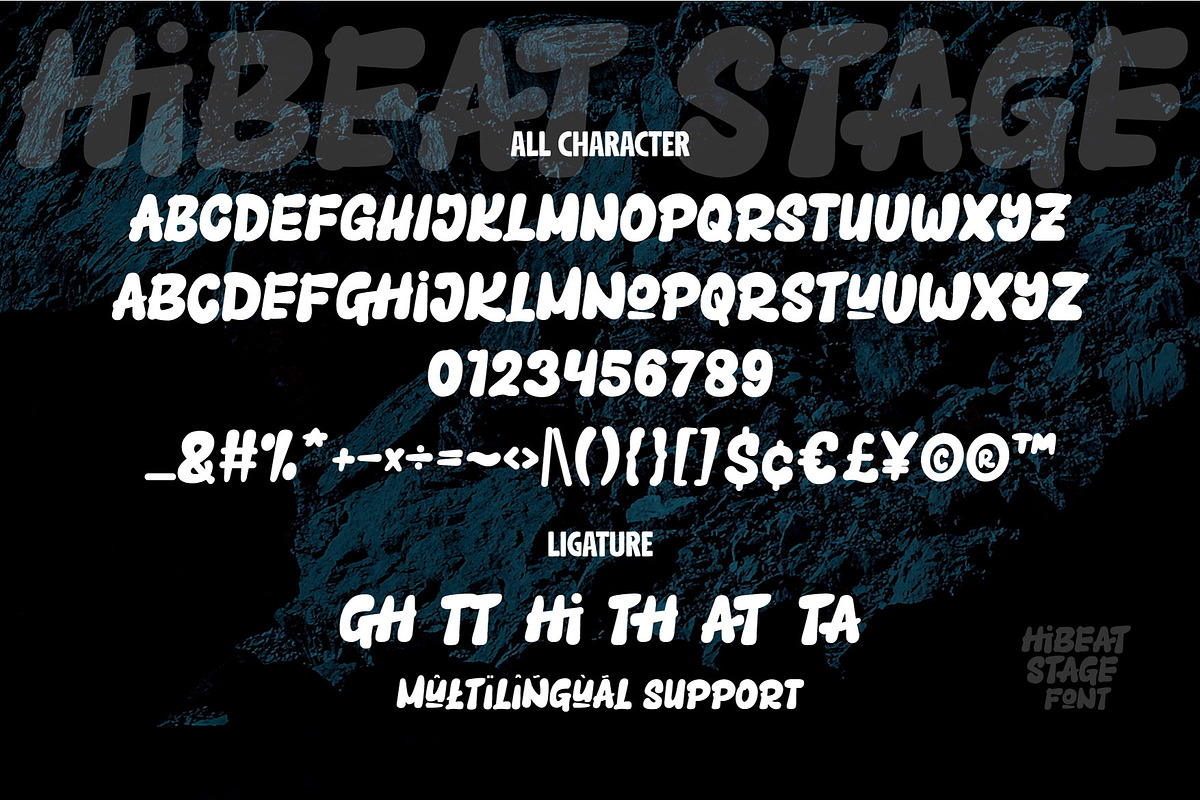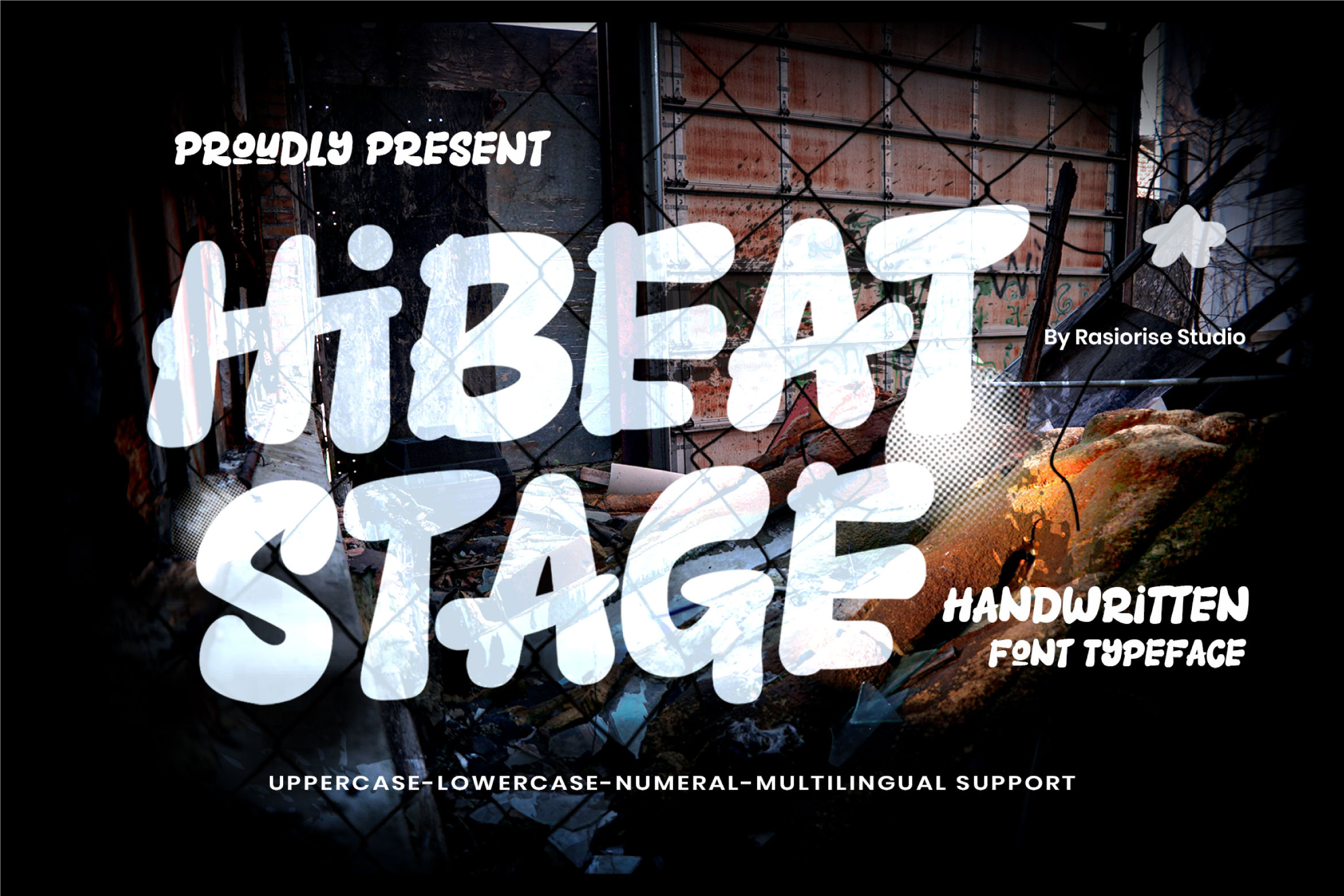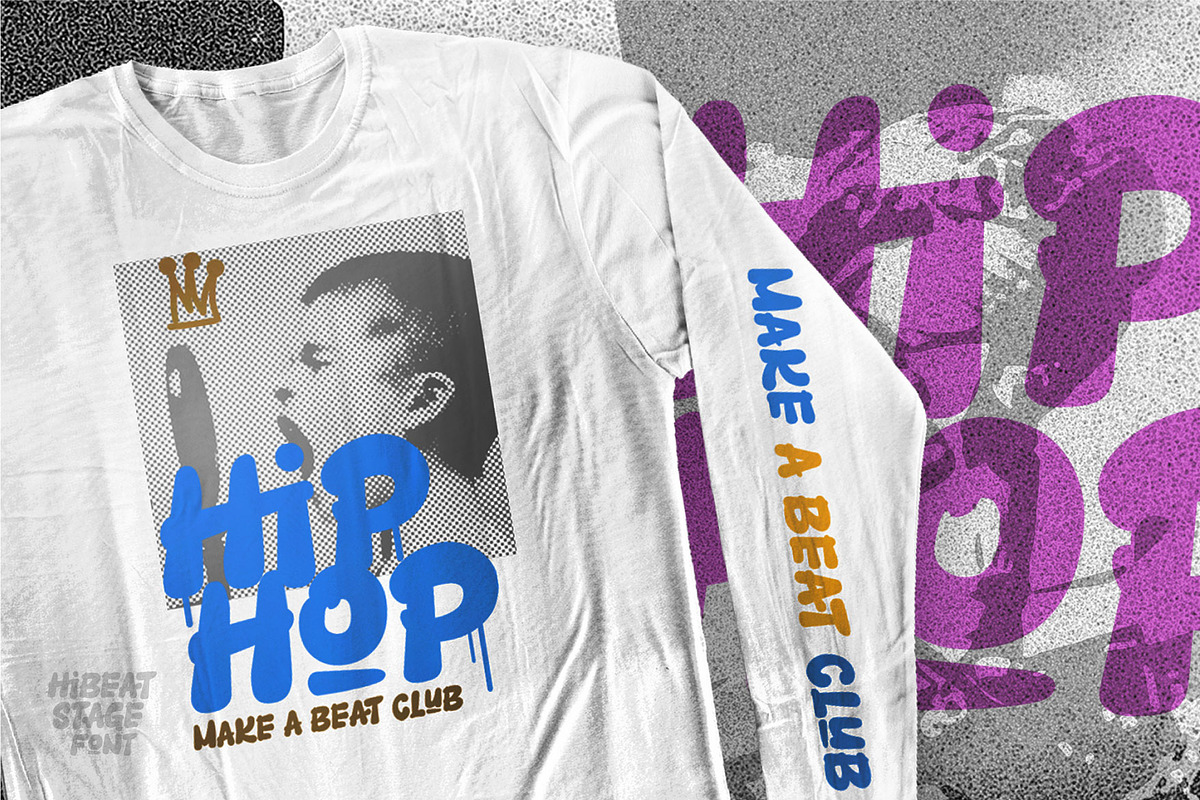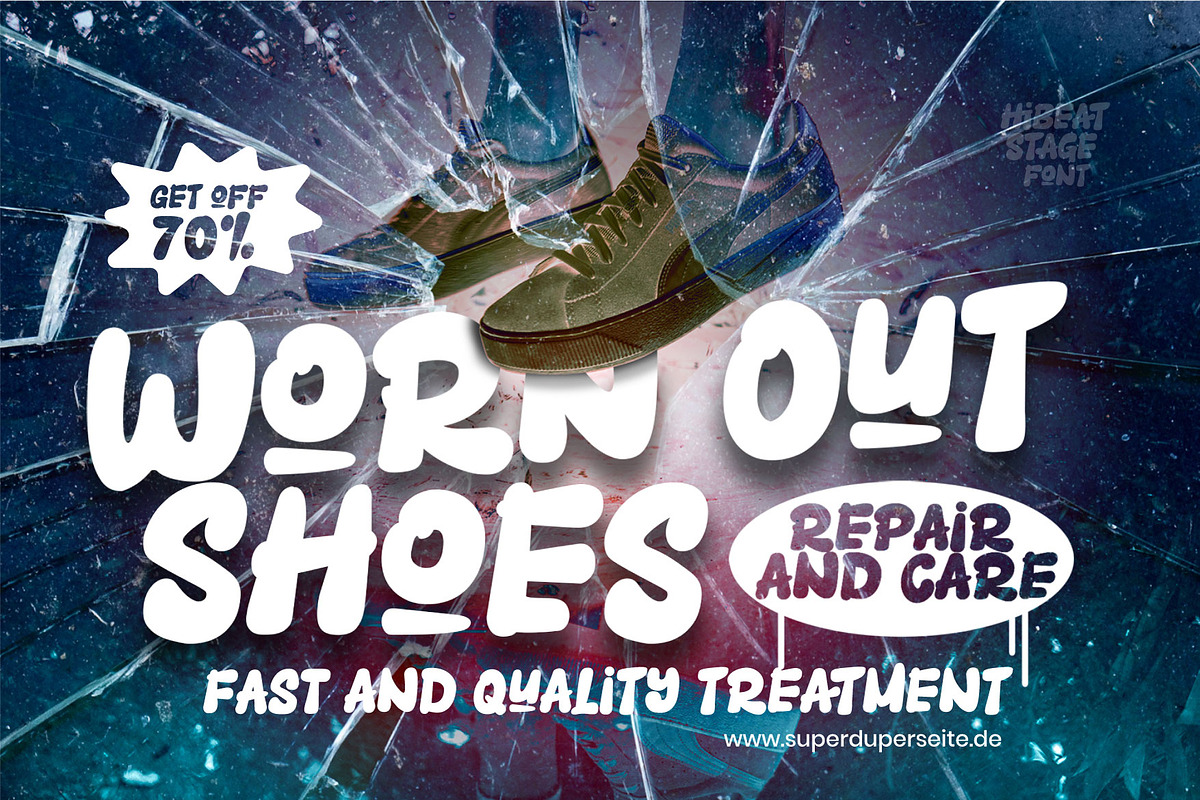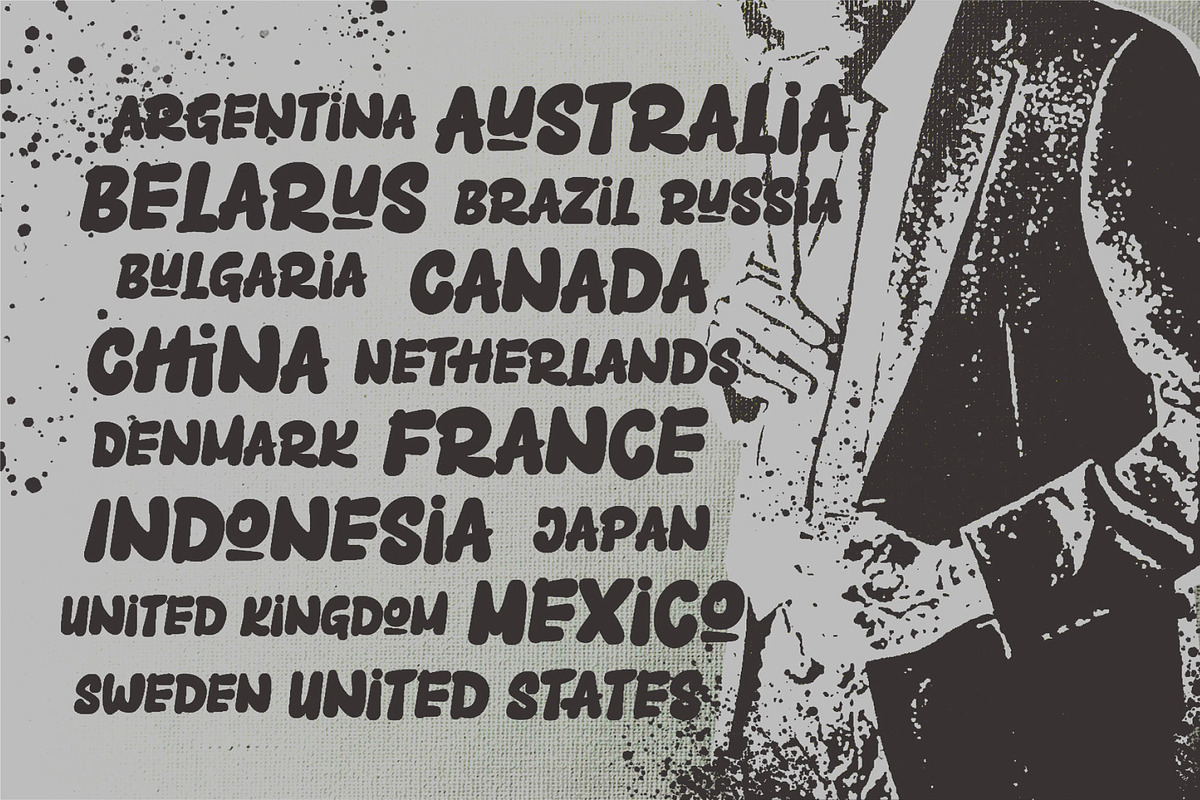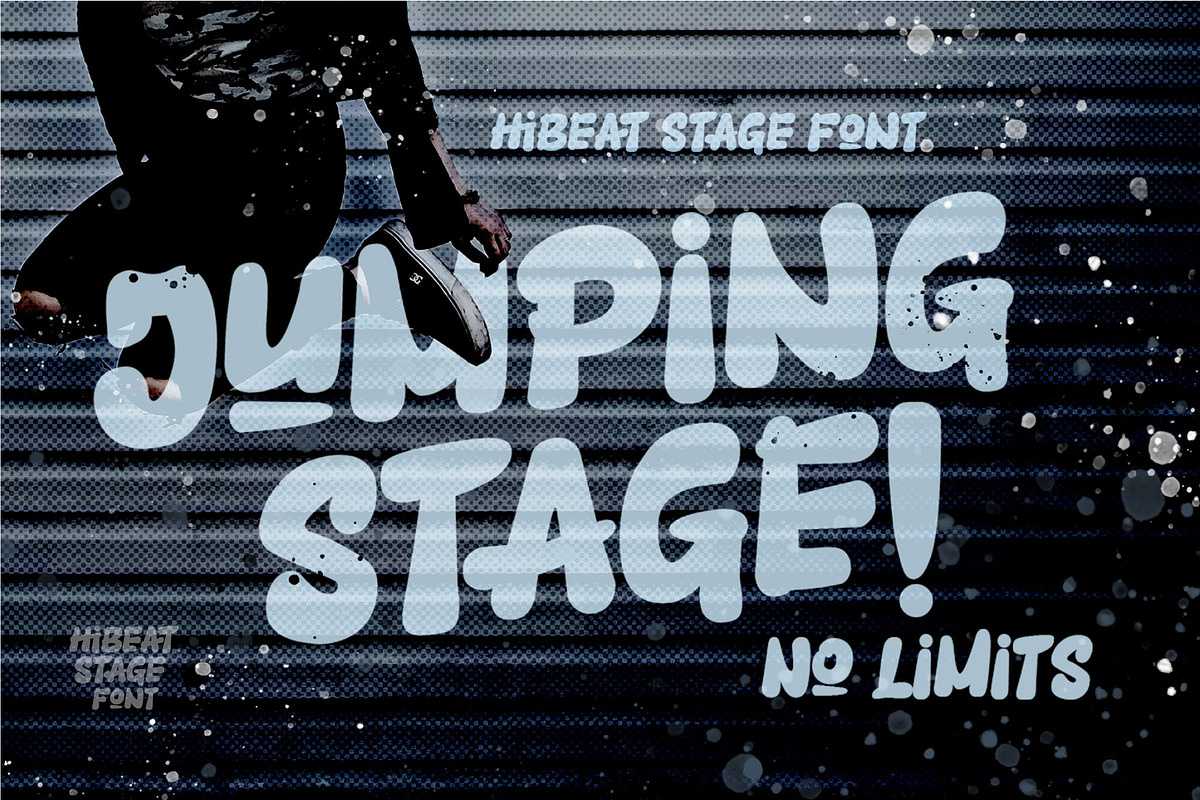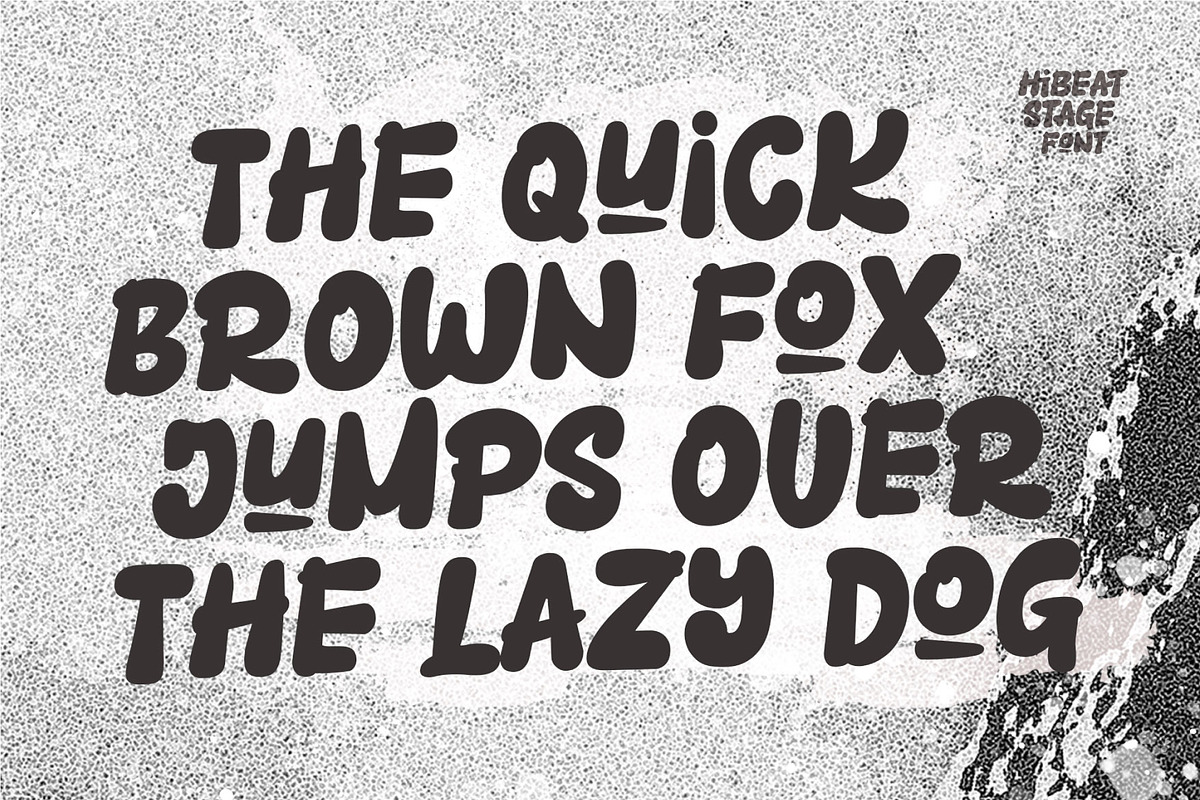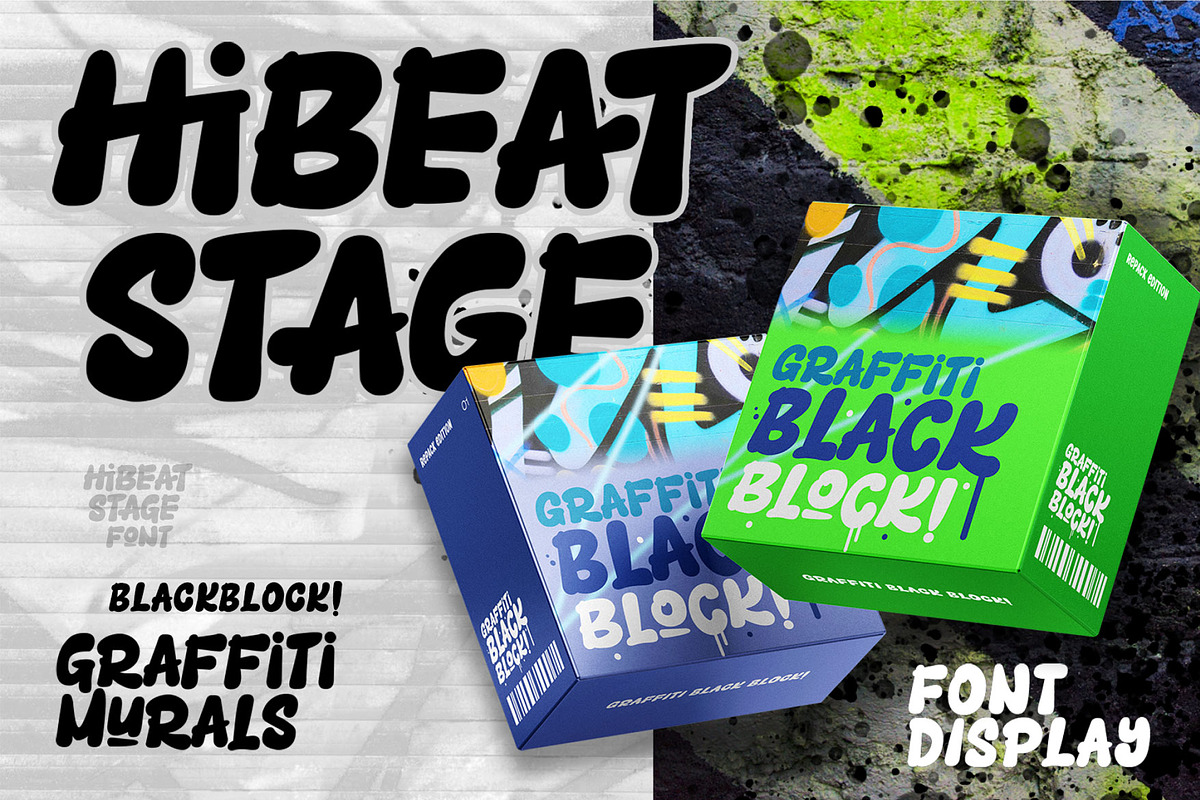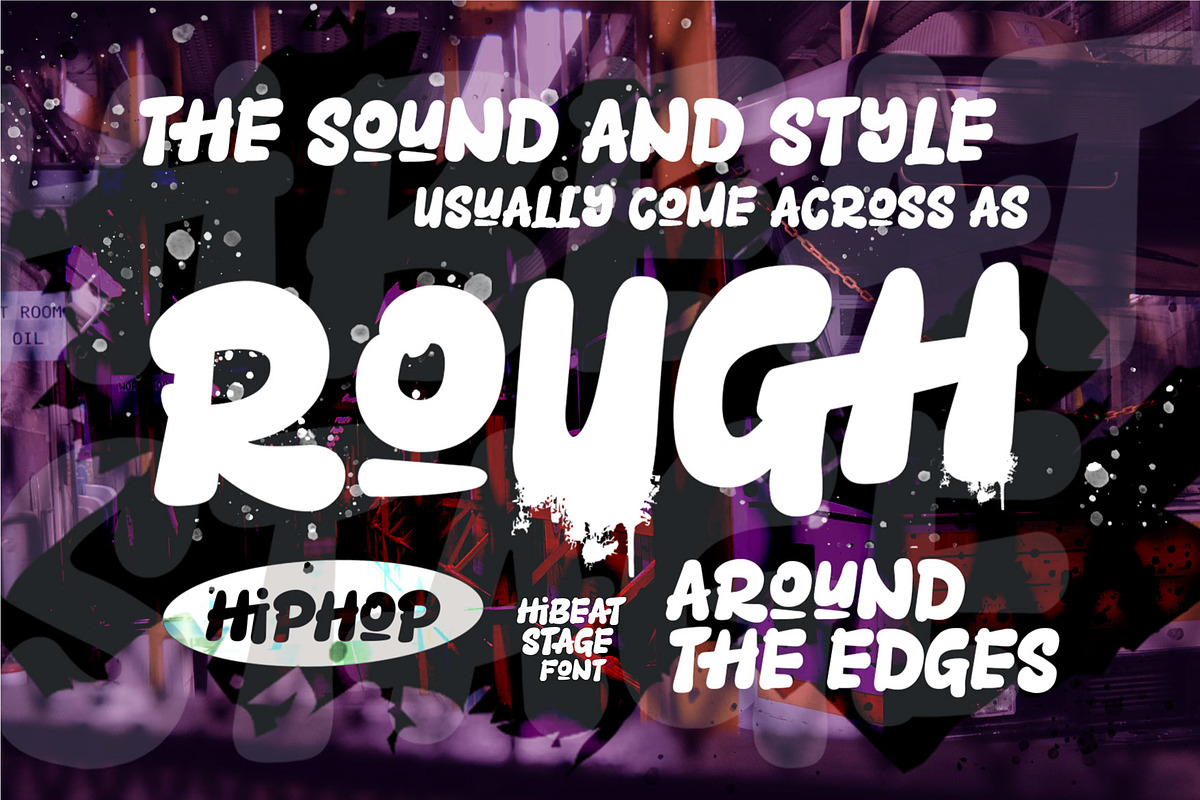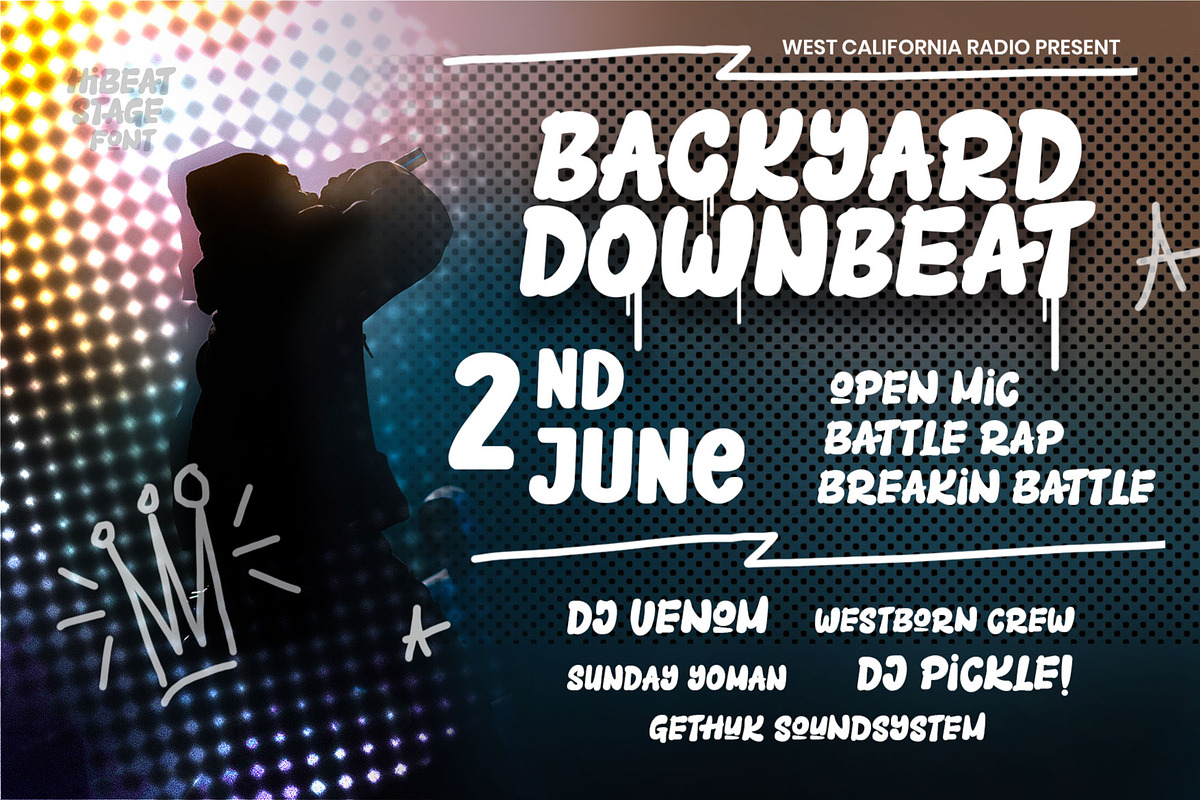
Hibeat Stage a Handwritten Font
Hello Everyone! Hibeat Stage Font has been released for those of you who are looking for a Handwritten Urban/street font. A handwritten font that combines the freestyle urban/street typeface. This font is inspired by graffiti street and urban quirky style, a freestyle handdwritten font with several combinations to combine hiphop and rock styles like a tagging in the urban street walls. With easy-to-read character font for your project, also you can easily create beautiful and stand-out typography and Headline. Unleash your creativity with Hibeat Stage Font and let your urban street style!.
Hibeat Stage is perfect for Logotype, Book Cover, Gift Cards, Greeting Cards, Posters, Merchandise, Packaging Labels, Magazines, or any type of advertising purpose.